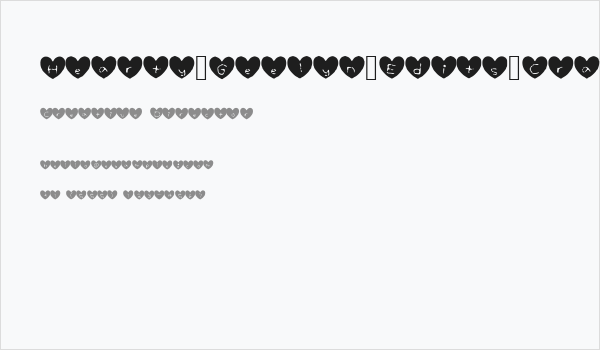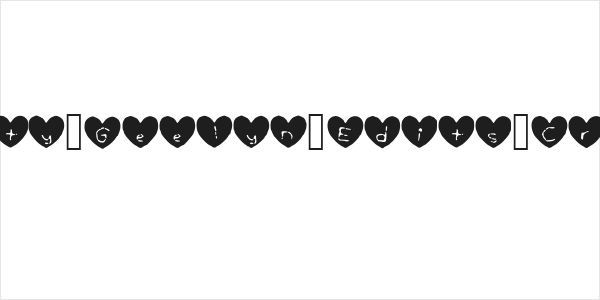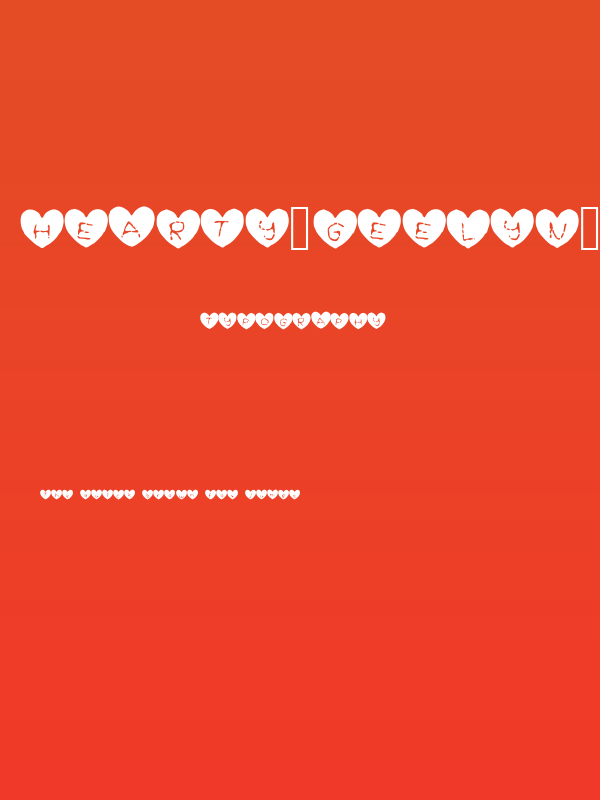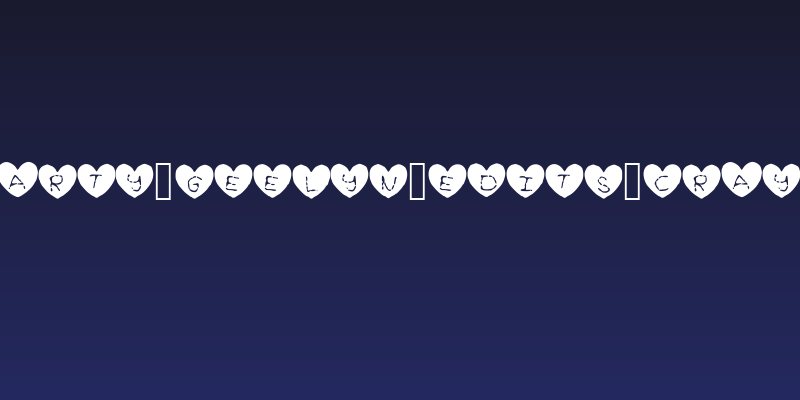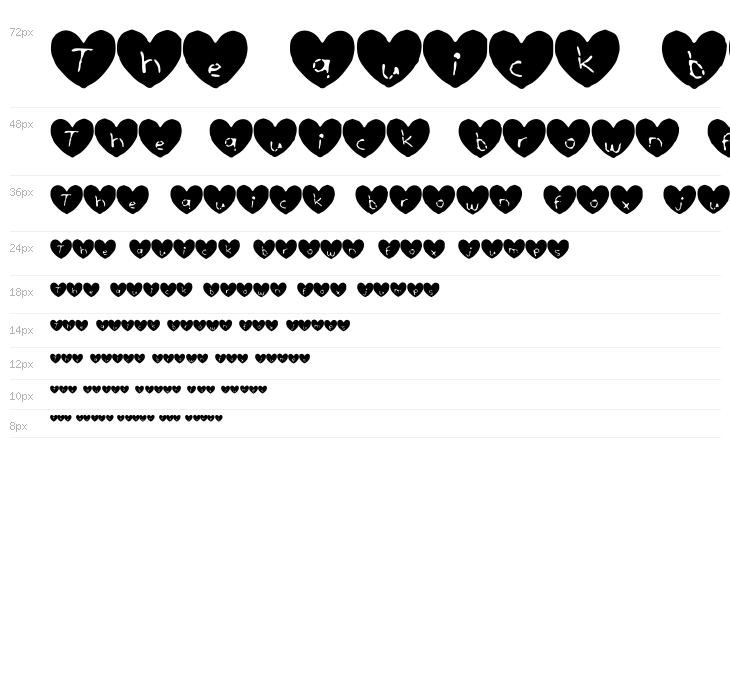
Hearty_Geelyn_Edits_Crayon Font
Hearty_Geelyn_Edits_Crayon Description
This playful and whimsical font is characterized by its unique presentation of each character inside a heart shape. The letters and numbers are styled with a crayon-like texture, giving them a hand-drawn, informal appearance. The uppercase and lowercase letters maintain a consistent style, with slightly irregular lines that add to the charm. The numbers and special characters follow the same design, ensuring a cohesive look. This font is perfect for projects that require a fun, lighthearted touch, such as children's books, greeting cards, or playful branding.
| Overall Style | Whimsical |
| Use Case | Headlines, Logos, Decorative text |
| Proposed Projects | Ideal for children's books, greeting cards, playful branding, and DIY crafts. |